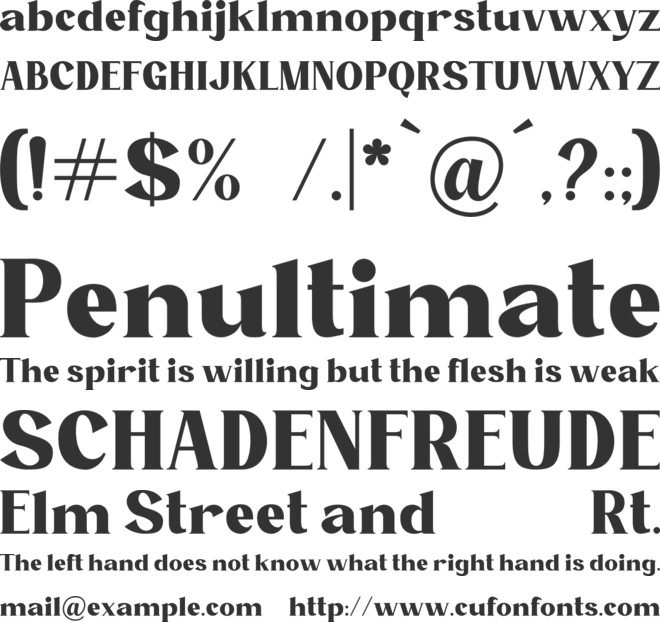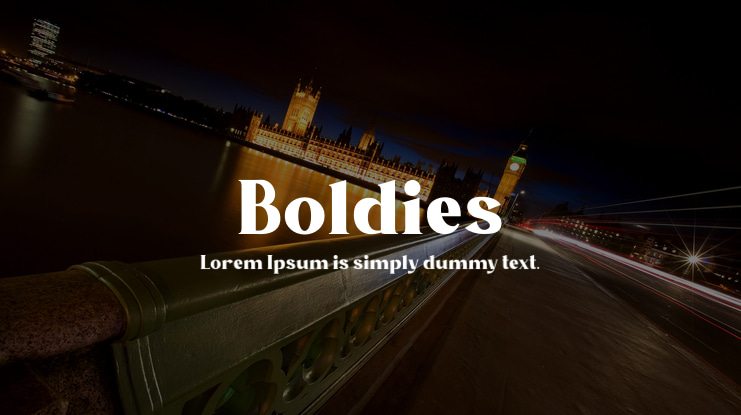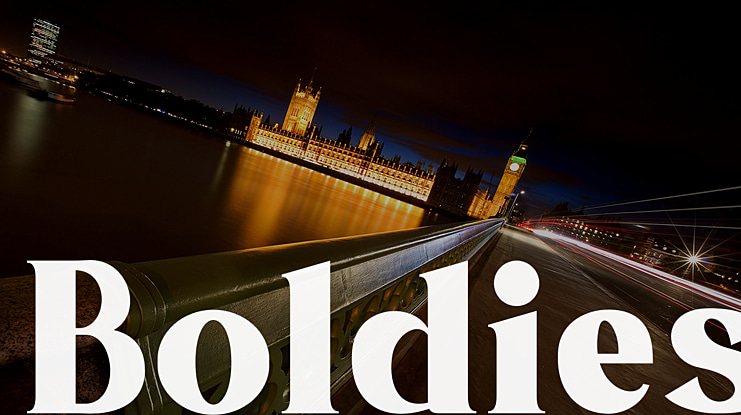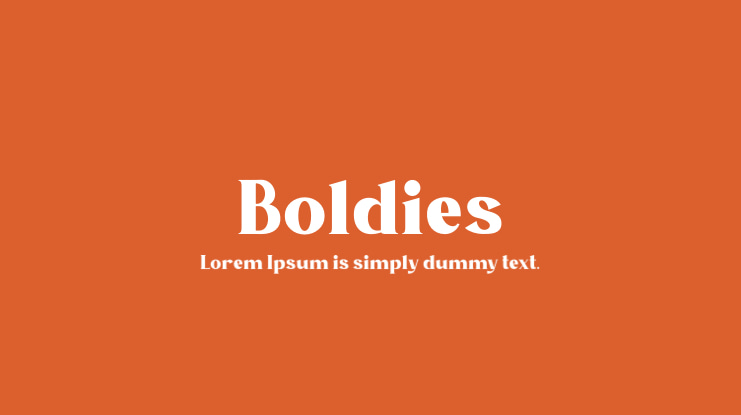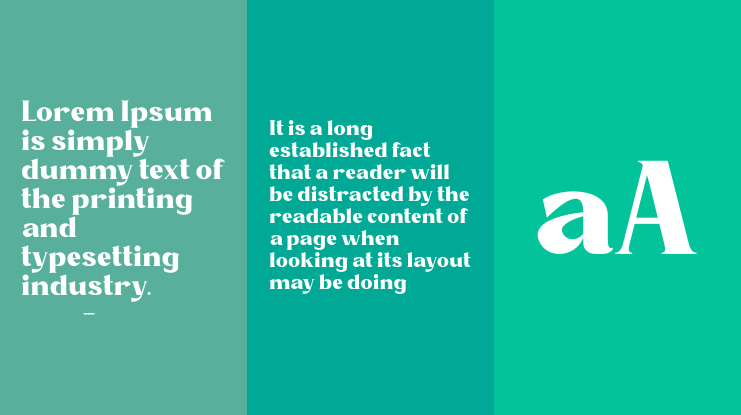
Boldies Font
Bayu Suwirya
It’s an elegant modern bold serif typeface that gives a romantic feel to any curve that has smooth edges. The Alternate shape will make your design look like Modern. But don’t worry if you need the Design like Classic and Bold Serif, you just put the normal Uppercase and Lowercase. With many ligatures will make your design projects stand out! Add this font to your most creative ideas for Application, Art Gallery Poster or postcard, Architectural Logo Project, Classic Magazine, Product Skincare or Logotype you want to used! Support the Multilingual Languange!